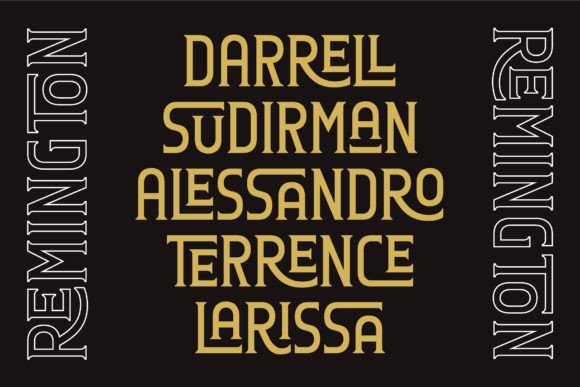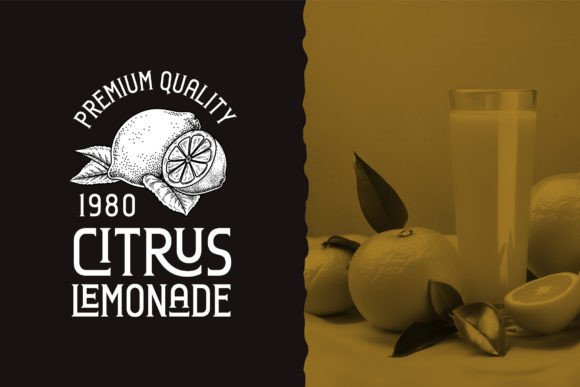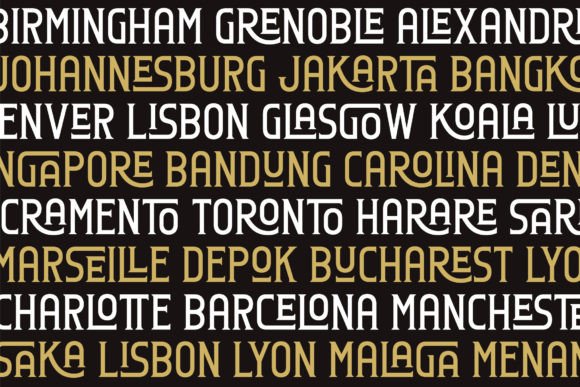
Introduction to Morgan Remington Font
Morgan Remington is a font that you can use to make a vintage logo for branding, typography design, magazine or book cover, website header, product packaging, t-shirt design, label poster and many more.
Key Features of Morgan Remington Font
Why Choose Morgan Remington Font?
Morgan Remington Font offers exceptional quality and versatility, making it a valuable addition to your design toolkit. Whether you’re creating for personal projects or commercial use, Morgan Remington Font delivers professional results.